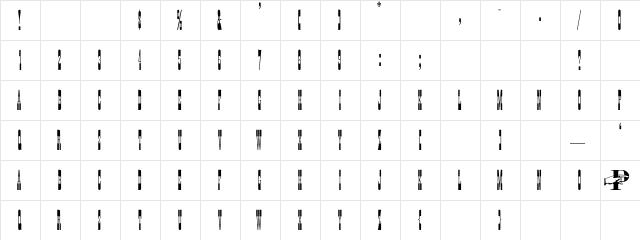
PonderosaWd Regular
Design Context for PonderosaWd
PonderosaWd is a composed and adaptable typeface that performs quietly and consistently across a wide range of design contexts.
Pro Tip: Use PonderosaWd in both headline and body roles to test its range before committing to a single application.